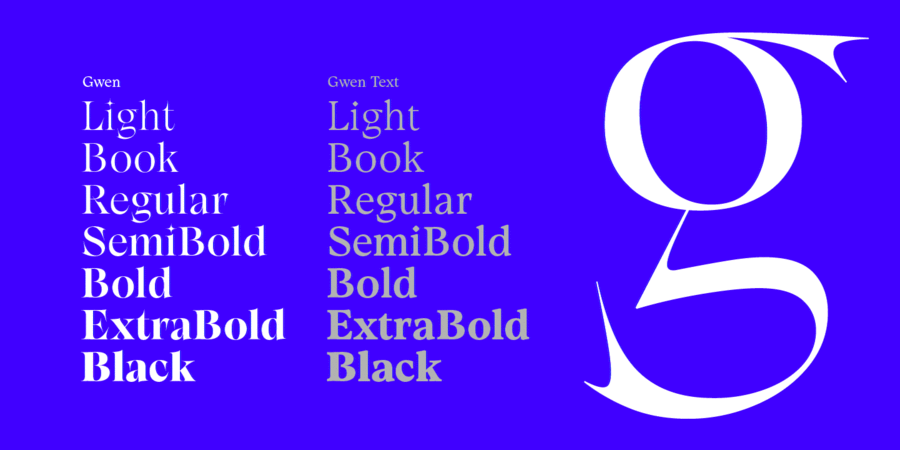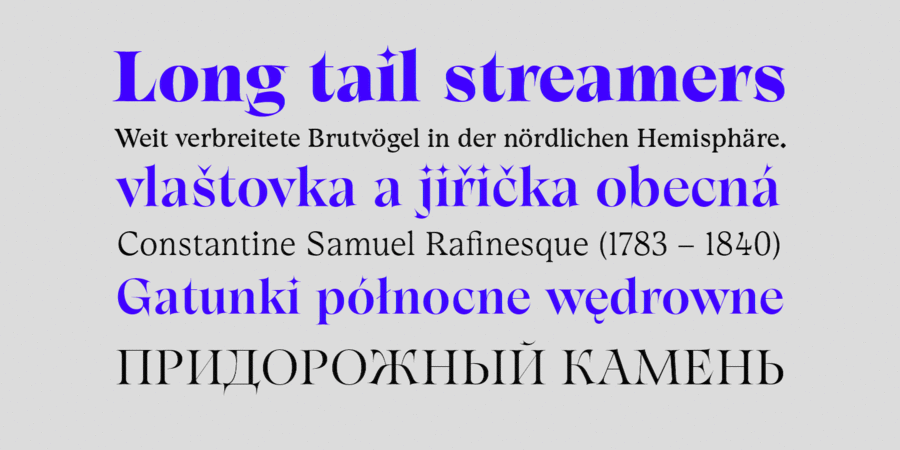
Gwen is a variable type system in 7 weights. The complete font family consists of two subfamilies: the highly characteristic Display Serif family which shows its full potential and beauty in big sizes and simpler Text variation appropriate for smaller sizes. The variable font combines the best of both worlds and provides unique flexibility to switch between all of the font weights and the text and display style at the same time. The font supports Extended Latin and Cyrillic scripts and its main purpose is to be used in editorials, although it may find good implications in headlines, impactful landing pages, posters, and packaging. OpenType Features: Common Ligatures, Discretionary Ligatures, Contextual alternates, Localised Forms, Diagonal Fractions, Denominator, Numerator, Case Sensitive Forms Ordinals. The typeface was designed by Pavel Pavlov and Plamen Motev in 2022.
aristocratic, salon art, solemn, voiced, noble, high-quality, cultural, sharp, rich, secular, silver, masterful, luxurious, expensive, spectacular, fragile, transparent, thin, elite, fashionable, beautiful, jewelry, select, elegant, expressive, distinctive, pretentious, artistic, sexy, thorny, brilliant, glossy, esthetic, urban, passionate, refined, cutting, crisp, eccentric, bizarre, dynamic, gentlemanly, aesthetically beautiful, famous, precious, original, stable, proud, Glamorous, dramatic, daring, interesting, educated, notable, bright, active, solid, golden, self-assured, ambitious, cinematic, extravagant, splashy, authoritative, loud, close-fitting, strong, night, expressing, theatrical, festive, romantic, attractive, experimental, serious, traditional, classic, nostalgic, old-fashioned, conservative, technically, smooth, comme il faut, ancient, historical, reputable, convincing, important, robust